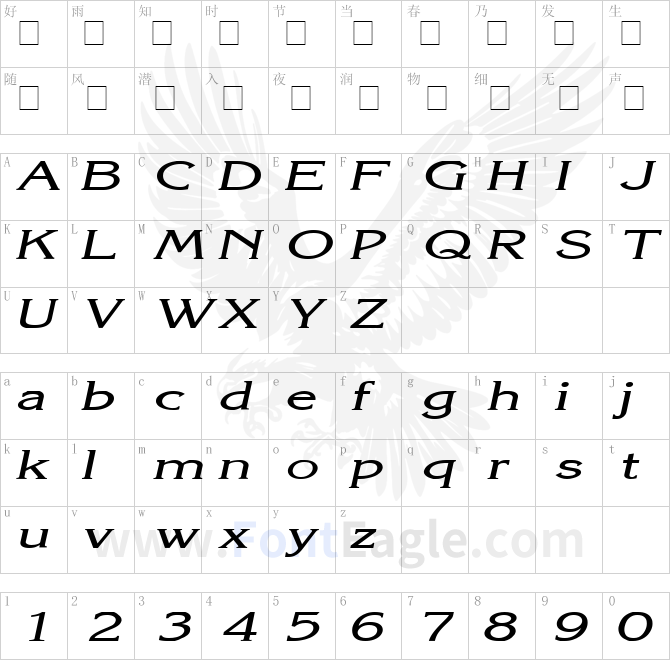
Keira Extended Italic.ttf Font Image
- Font name:Keira Extended
- Font Subfamily ID:FontMonger:Keira Extended Italic
- Font Full Name:Keira Extended Italic
- Postscript:KeiraExtendedItalic
Keira Extended Italic.ttf Characters Sample